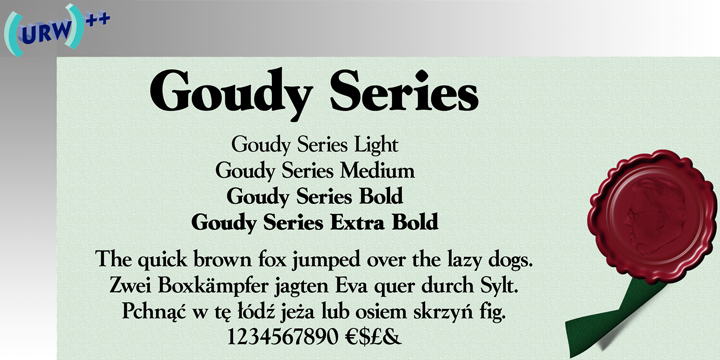
Discover the elegant Goudy Series Font Free Download, a serif typeface designed by URW Design Staff that blends classic charm with modern versatility. This font is perfect for creating a sophisticated, timeless aesthetic. However, please note that you must purchase this font for commercial use. For testing purposes, you can download it for free and explore its refined style.
The Goudy Series Font is ideal for various applications, such as designing professional book covers, crafting elegant branding materials, creating polished editorial layouts, or adding a classic touch to invitations and logos. Its clean lines and balanced proportions make it a top choice for projects that demand a refined, traditional look.
Why is the Goudy Series Font Free Download so exciting? Inspired by Frederic Goudy’s iconic designs, its serif structure offers a warm, readable quality with subtle details like small caps and ligatures, ensuring versatility. This font’s timeless elegance makes your designs stand out with a professional, historic appeal.
The Goudy Series Font family includes four styles: Regular, Bold, Italic, and ExtraBold, providing flexibility for diverse design needs. These variations allow you to experiment with weights and styles, perfect for both print and digital media.